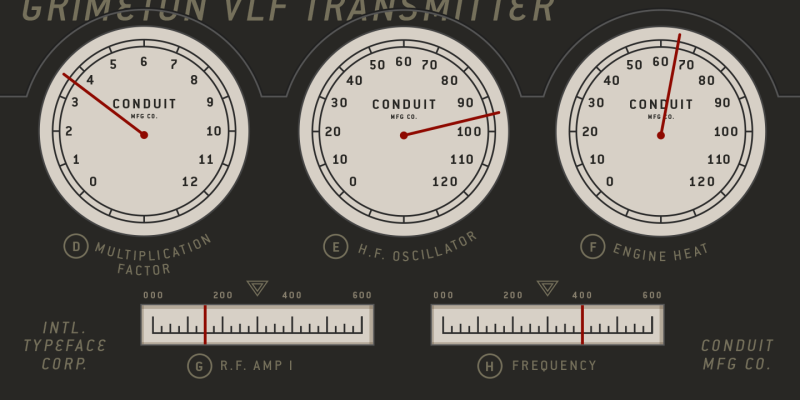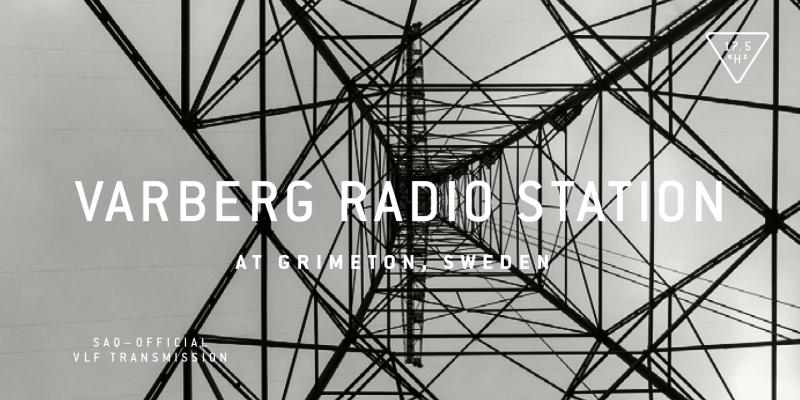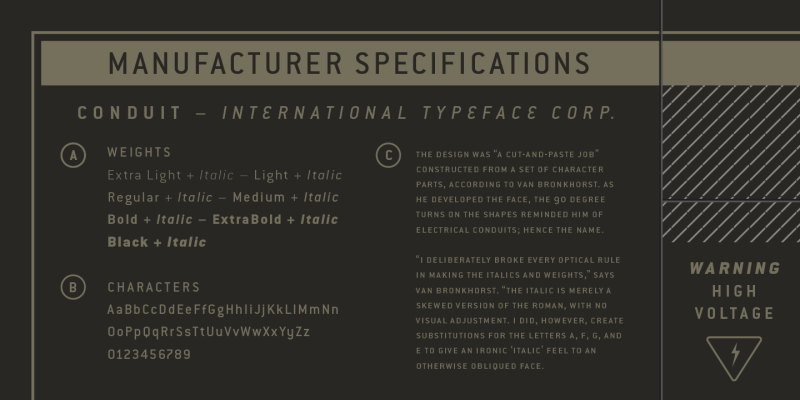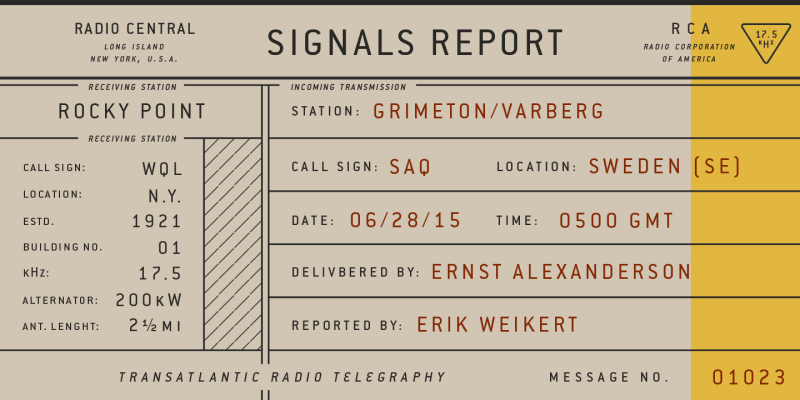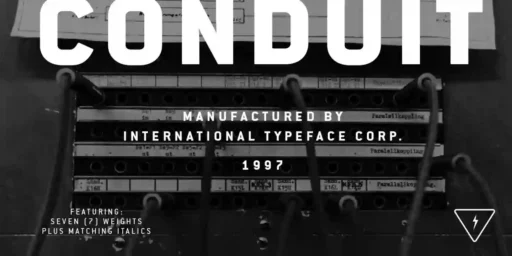
ITC Conduit Font
ITC Conduit is a font with a unique functionality and visual allure blend. Its subtle geometry, balanced proportions, and contemporary spirit make it ideal for designers seeking timeless charm. Whether it’s a logo identity system, a digital media interface, or an arresting magazine spread, ITC Conduit is a multi-face design tool that can adapt and perform beautifully in various design settings.
Its legibility and visual interest combination ensures font readability across Print and Digital mediums. At the same time, it benefits from distinctive design elements that make it look elegant and intelligent. This aesthetic and pure functionality are the core elements that make this typeface unique and give it this value for designers.
ITC, a leading typeface corporation in the late 1980s, commissioned acclaimed designers to create modern and versatile typefaces. The authors, influenced by the clear, geometric style of the Bauhaus movement and the simplicity of Swiss design for typography functionality, decided to design a typeface that embodies modern letters.
Every turned glyph was building up whether the form is solid and charming at the same time. Its minimalist forms fill spaces, making it current and multifunctional in fast-developing environments.
Over time, the font family encompassed several iterations revealing a varied assortment of fonts featuring greater appeal and flexibility. The inclusion of wide weights, multiple styles, and several language support widen the possibility for designers to explore the whole potential of the ITC Conduit typeface, unlocking a world of new creative apps that make the font a most preferred job for a variety of project designs.
One of the most prominent features of ITC Conduit is its geometric and elegant facet. This font’s design is best described by a harmonious combination of straight lines, mild curve lines, and sophisticated negative spaces that make it neutral and readable. The geometric characteristics of this typeface give it a modern and precise look, perfect for classy projects.
Its geometrical shapes are legible and readable. The designers crafted each character with particular attention to clarity and legibility, even at small sizes or in low contrast. The high x-height, clear ascenders and descenders, and close spacing make the font legible.
Versatility is a crucial component of ITC Conduit, driven by its technical competence. The font is engineered to look perfect in any situation, from print to digital, and across languages. These capabilities achieve such flexibility: OpenType advanced features, complete language support, and wide character set that provides a great deal of ligature, alternation, and contextual variations.
Its Wittily and sophisticated looks, combined with its technical capability, make it a cool, versatile typeface suitable for modern design. Whether used for billboards or body text, this type always gives a cohesive and visually beautiful result.
ITC Conduit Font is a typeface of Mark van Bronkhorst and traded by the International Typeface Corporation (ITC) from 1997. It is a sans-serif font with a geometric design and rounded corners.
The ITC Conduit Font has variety because it comes in a range of weights and styles, including regular, bold, condensed, and extra condensed. Furthermore, the character set of Unicode corpus is very wide and includes upper and lowercase letters, numbers, punctuation and some symbols or special characters.
ITC Conduit is a widely applied font in different design tasks, such as branding, advertisement, packaging, and editorial design. Additionally, it is widely used in digital media, including web pages and mobile applications.
The ITC Conduit Font was deliberately made very clear, so people can read it clearly even when the size is small. The design of this typeface is so sober, it’s simplicity and rounded corners make it legible on the screen and in print.
Where ITC Conduit Font works best
ITC Conduit Font stays legible at small sizes, which makes it a strong choice for navigation, buttons and dashboards in web design and app interfaces.
Clean sans serifs like ITC Conduit Font are the default language of SaaS, fintech and product branding.
What is ITC Conduit Font good for?